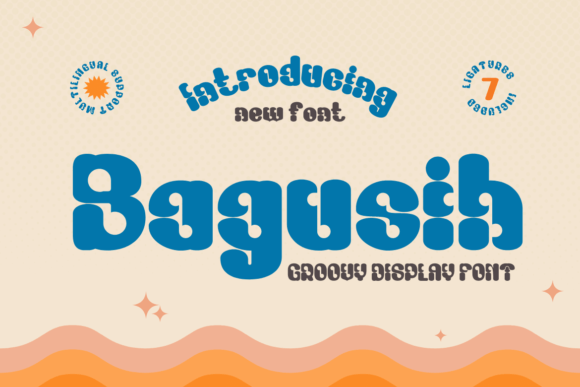
Bagusih: A Bold, Retro Font for Creative Expression
Bagusih is a distinctive font that blends retro charm with modern design sensibilities. Its unique style makes it ideal for anyone looking to add a standout visual element to their projects. Whether you're designing a logo, creating marketing materials, or working on a personal project, Bagusih offers a fresh and eye-catching option.
Designed with a vintage aesthetic, Bagusih captures the essence of 60s typography. This makes it perfect for those who want to evoke nostalgia or create a groovy, retro vibe in their work. The fontโs bold strokes and playful curves give it a dynamic presence that can elevate any design.
What Makes Bagusih Unique?
Bagusih stands out due to its distinct character set and stylistic choices. Unlike standard fonts, which often prioritize readability over flair, Bagusih balances both. It features a mix of uppercase and lowercase letters with subtle variations that add personality to each word. This makes it particularly useful for headings, titles, and other prominent text elements.
The fontโs retro-style design is reminiscent of classic signage, album covers, and posters from the 1960s. This gives it a nostalgic appeal that can resonate with audiences looking for a throwback feel. At the same time, its clean lines and structured layout ensure it remains legible even at smaller sizes.
Why Use Bagusih?
Bagusih is more than just a stylish choiceโit serves a practical purpose in design. It helps convey a specific mood or theme, making it valuable for creative professionals and hobbyists alike. For instance, if you're designing a poster for a music festival or a vintage-themed event, Bagusih can help reinforce the overall aesthetic.
Entrepreneurs and small business owners might find Bagusih useful for branding purposes. A bold, unique font can make a brand more memorable and visually striking. It works well for logos, product names, and promotional materials where standing out is key.
Practical Applications of Bagusih
Bagusih can be used across various platforms and mediums. In digital design, it's great for website headers, social media posts, and email newsletters. Its boldness ensures it grabs attention without overwhelming the viewer. For print materials, such as brochures, flyers, and business cards, Bagusih adds a touch of personality that can differentiate your work from others.
In educational settings, teachers and students might use Bagusih for presentations or creative assignments. It can make visual content more engaging and help illustrate themes related to history, art, or culture. For bloggers and content creators, incorporating Bagusih into graphics or headlines can enhance the visual appeal of their work.
Freelancers and designers often seek fonts that offer versatility. Bagusih fits this need by being adaptable to different styles and formats. Whether you're working on a commercial project or a personal endeavor, it provides a reliable option for adding a retro flair.
Considerations Before Using Bagusih
Before choosing Bagusih, consider the context in which it will be used. While it excels in headlines and short phrases, it may not be the best choice for long paragraphs of text. Its stylized nature is better suited for emphasis rather than body copy.
Finally, think about the audience you're targeting. If your goal is to create a professional, minimalist look, Bagusih may not be the best fit. However, if you're aiming for a creative, expressive, or nostalgic feel, it could be an excellent choice.
Getting Started with Bagusih
Beginner-friendly examples include using Bagusih for a blog title, a social media graphic, or a presentation slide. As you become more comfortable, experiment with combining it with other fonts to create balanced and visually appealing layouts.
Remember, the key to effective design is balance. While Bagusih is a strong, attention-grabbing font, it should be used thoughtfully. Pair it with simpler fonts for contrast, and avoid overusing it in a single design.
Conclusion
Bagusih is a versatile and stylish font that brings a retro-inspired energy to any project. Its bold, unique look makes it ideal for creative professionals, entrepreneurs, and hobbyists looking to add a distinctive touch to their work. Whether you're designing for fun or for business, Bagusih offers a way to express your vision with flair and personality.
By understanding its strengths and limitations, you can make the most of this font in your designs. With careful application, Bagusih can help you create visuals that stand out and leave a lasting impression.